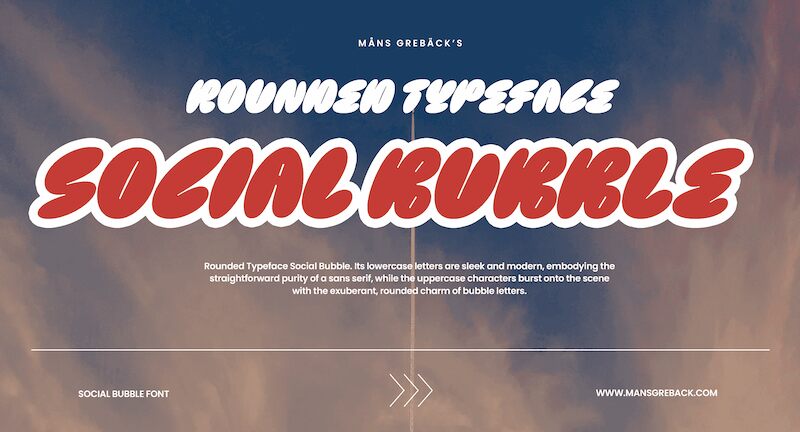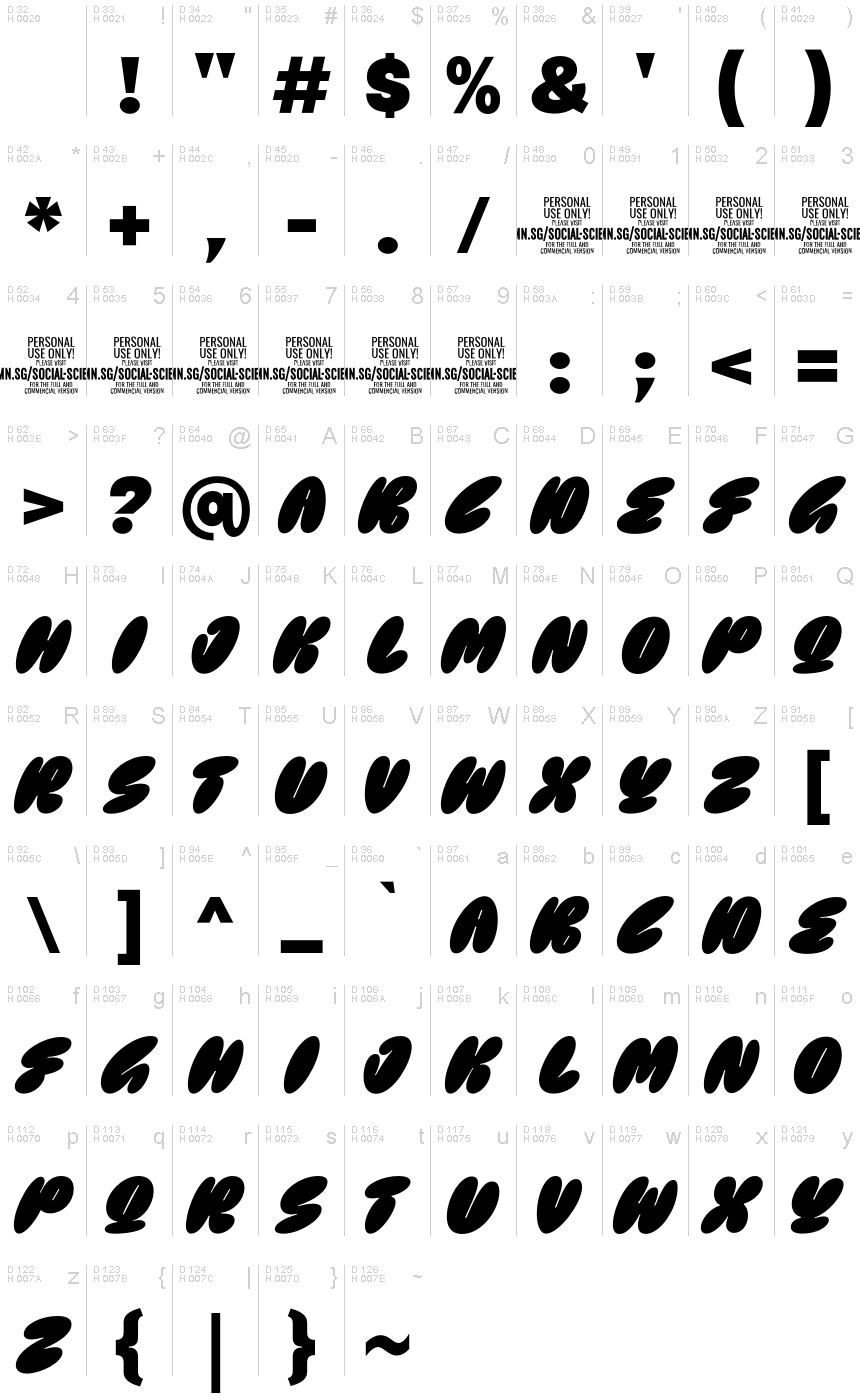
Social Bubble PERSONAL USE Regular
Social Bubble, designed by Mans Greback, is a captivating display font that captures the essence of softness and friendliness with a bold, graffiti-inspired flair. This charming typeface exudes a playful and approachable aesthetic, making it an engaging choice for a wide range of design projects.
The rounded, bubble-like forms of the letters lend a sense of whimsy and warmth, while the bold strokes and dynamic shapes create a striking visual impact. Social Bubble's unique blend of playfulness and boldness makes it an excellent option for crafting eye-catching headlines, vibrant logos, and playful branding elements.